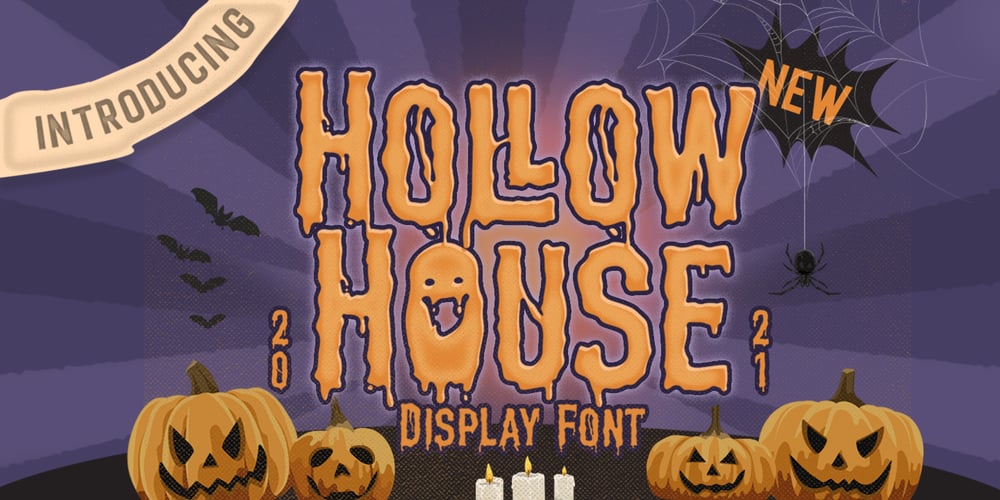
Hollow House Font Family was designed by Hendry Juanda and published by Letterhend. Hollow House contains 1 styles and family package options. Hollow House is a font which will looks great in dark / horror / spooky / scary theme. This type of font perfectly made to be applied especially in movies or storybook children which is need a standout font, and the other various formal forms such as invitations, labels, logos, magazines, books, greeting / wedding cards, packaging, fashion, make up, stationery, novels, labels or any type of advertising purpose.Features : numbers and punctuation multilingual alternates ligatures PUA encoded We highly recommend using a program that supports OpenType features and Glyphs panels like many of Adobe apps and Corel Draw, so you can see and access all Glyph variations. How to access opentype feature : letterhend.com/tutorials/using-opentype-feature-in-any-software/Email us to letterhend@gmail.com if you need something! Happy Designing!